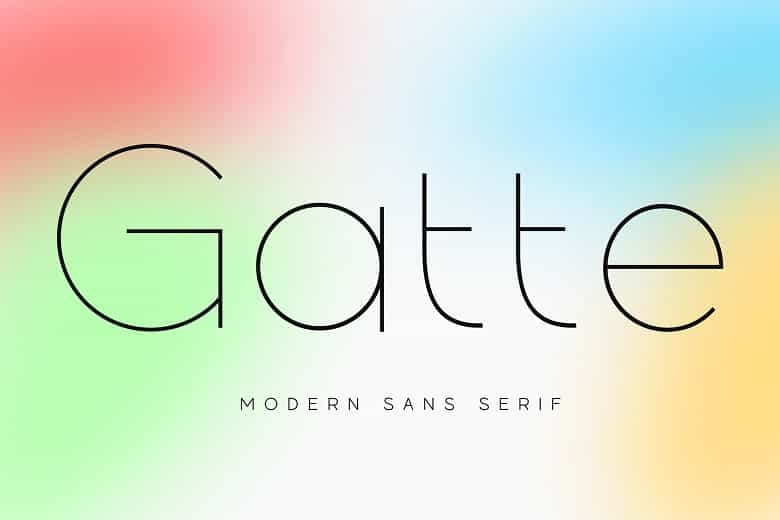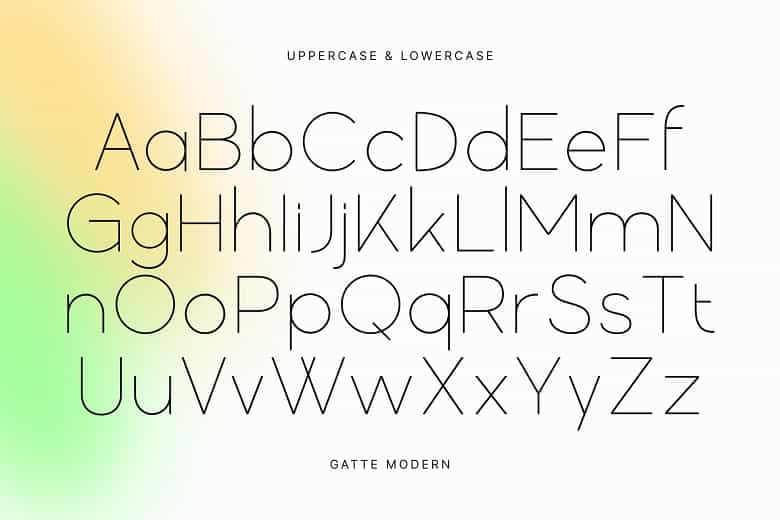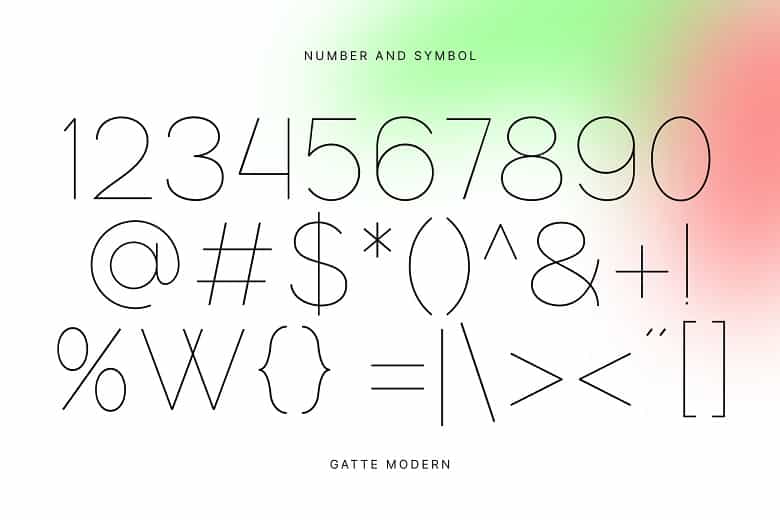
Gatte is a sans serif font that has five styles in the pack. Therefore, Gatte Modern is designed with simplicity, and it is a minimalist design but at the same time looks classy. The whole type has been optimized for big sizes.